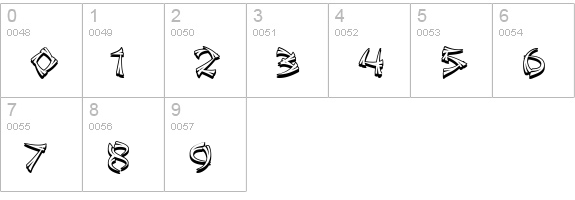
Introducing the exquisite Jade Monkey BTN Split Shadow font, a stunning display typeface that will captivate and inspire with its intricate details and unique design. This font combines elegance and playfulness, making it perfect for a wide range of creative projects. The Jade Monkey BTN Split Shadow font features a split shadow effect, adding depth and dimension to each character. Its clean lines and sharp edges create a modern and sophisticated look, while the shadow effect adds a touch of whimsy and charm. Whether you're designing a logo, a poster, or a branding project, the Jade Monkey BTN Split Shadow font will make a bold statement and leave a lasting impression. Its versatility allows it to be used in various contexts, from fashion and beauty to food and beverage industries. One of the most exciting aspects of the Jade Monkey BTN Split Shadow font is that it is freely available to download at FontsMarket.com. You can easily access and explore its full potential without any restrictions. This font offers unlimited possibilities for your creative endeavors, allowing you to express your unique vision and style. With its wide range of characters, including uppercase, lowercase, numbers, punctuation marks, and special characters, the Jade Monkey BTN Split Shadow font provides a comprehensive typographic palette that will elevate your designs to new heights. Embrace the beauty and versatility of the Jade Monkey BTN Split Shadow font and let your imagination run wild. Download it for free at FontsMarket.com and unlock a world of endless design possibilities.